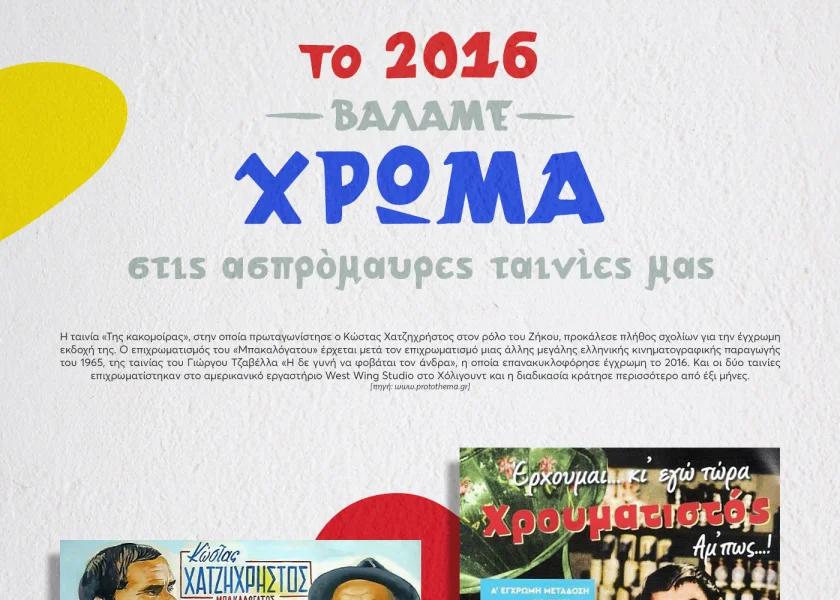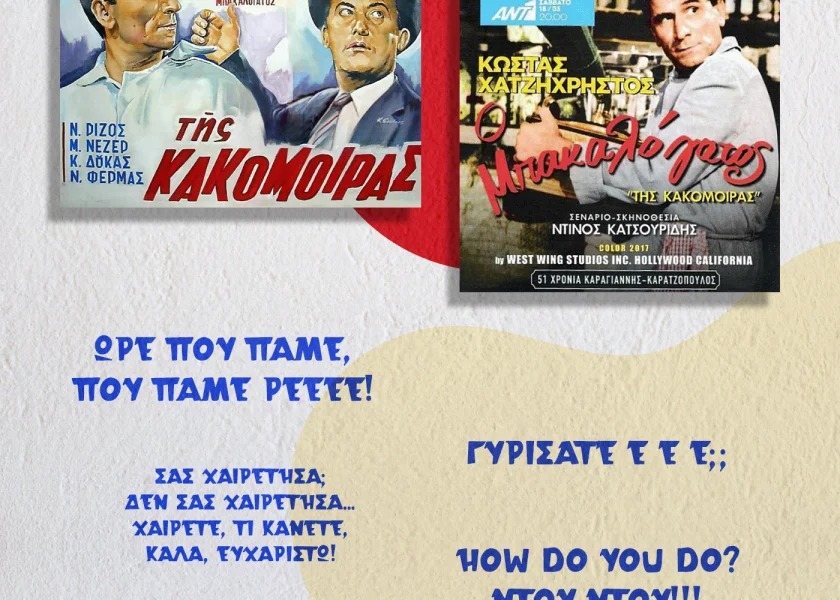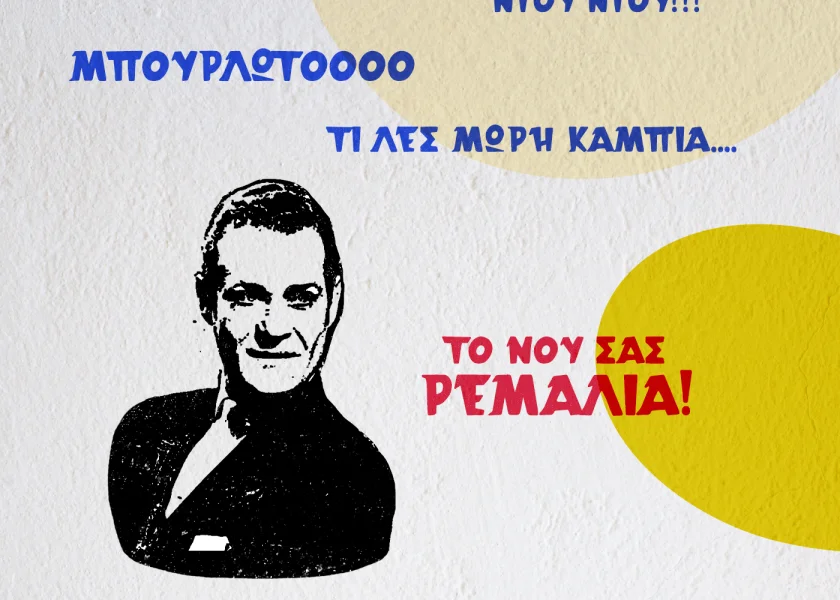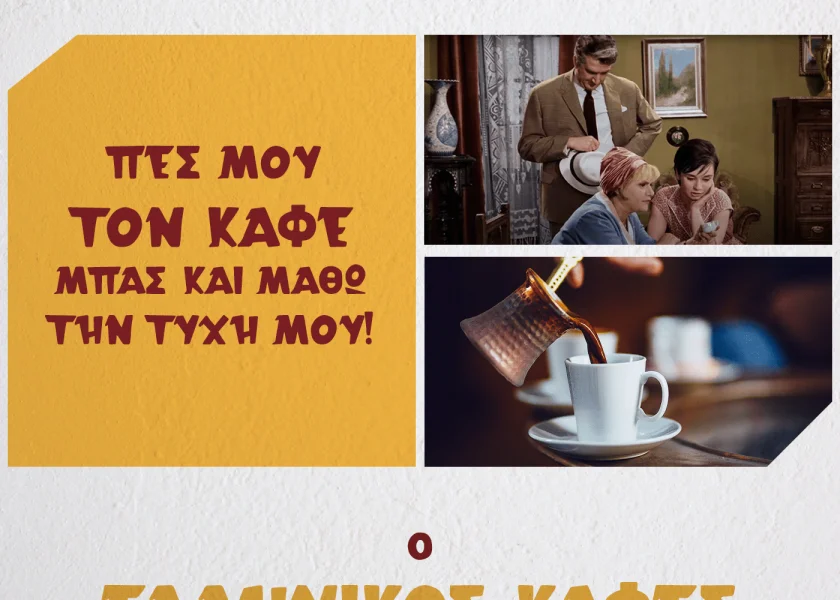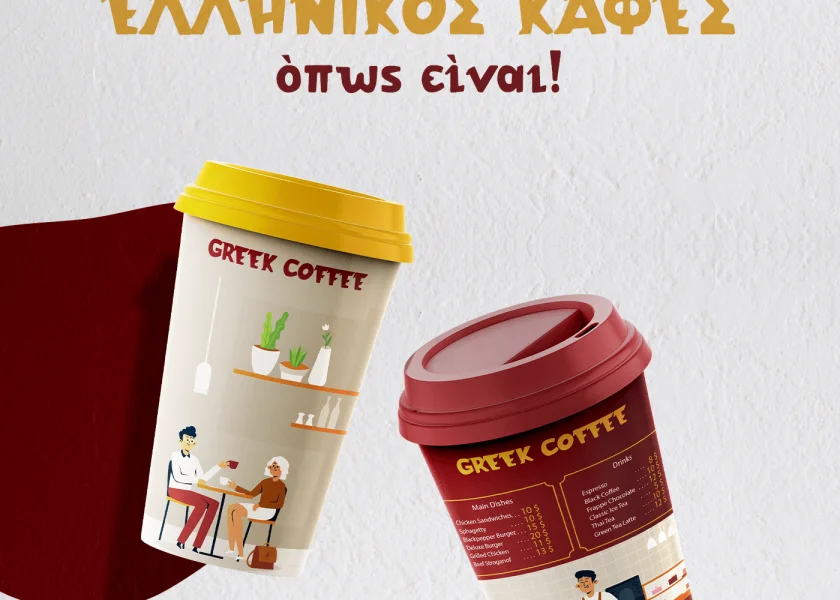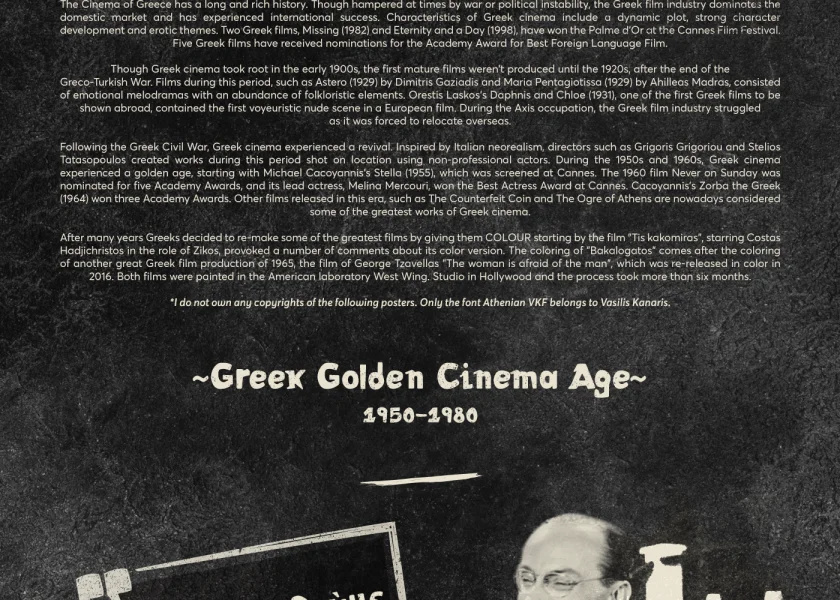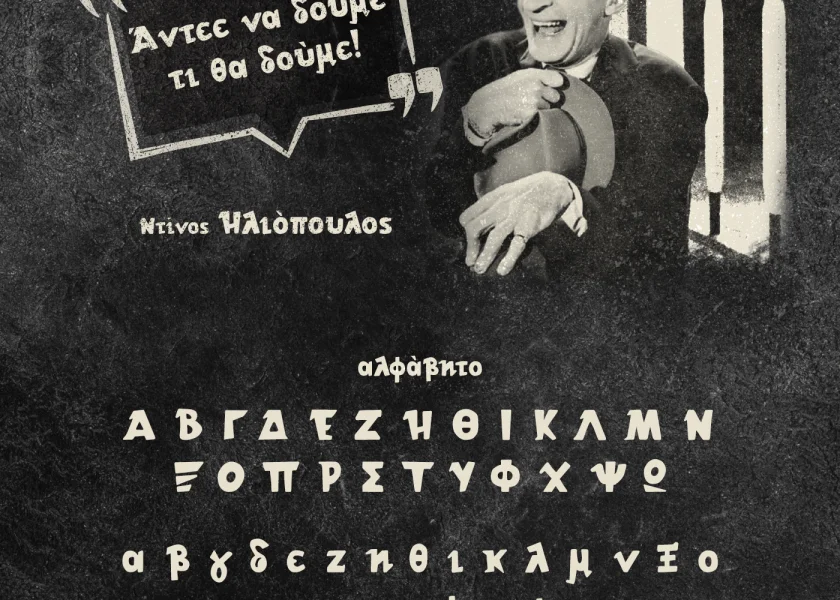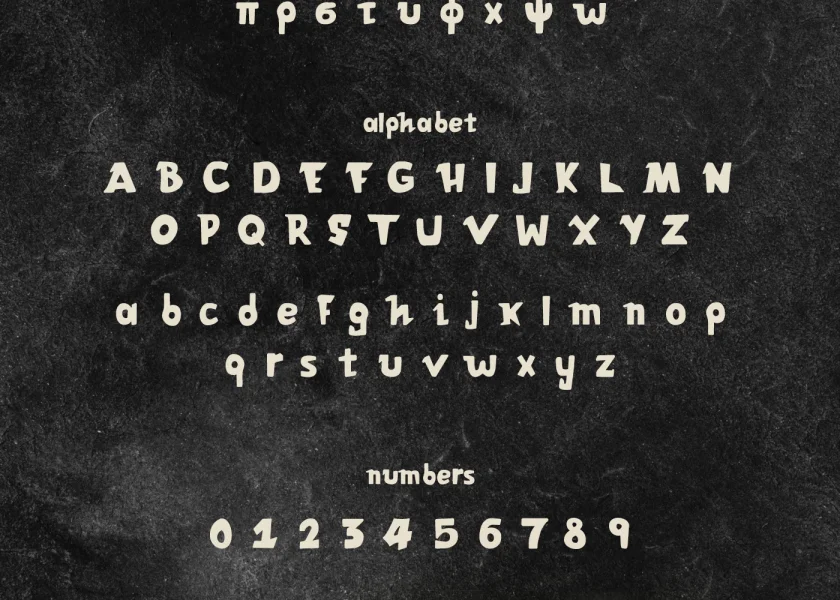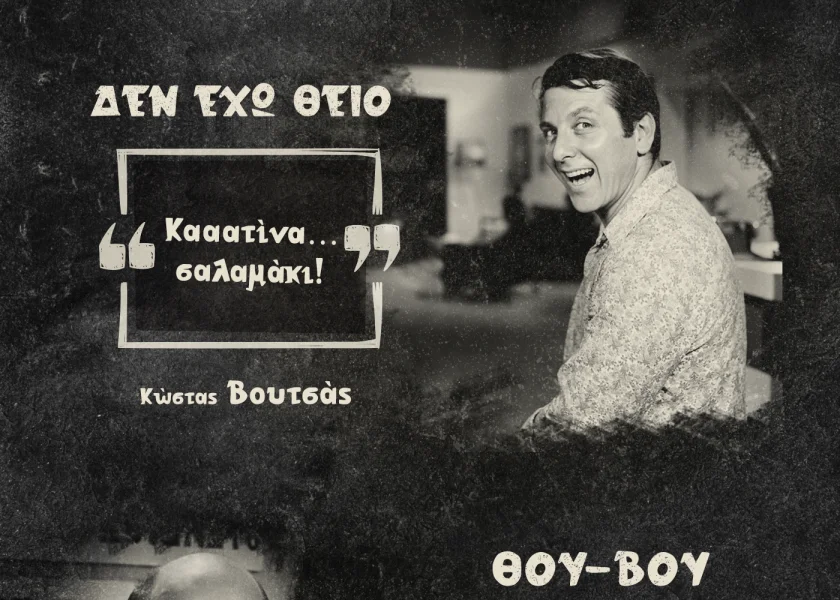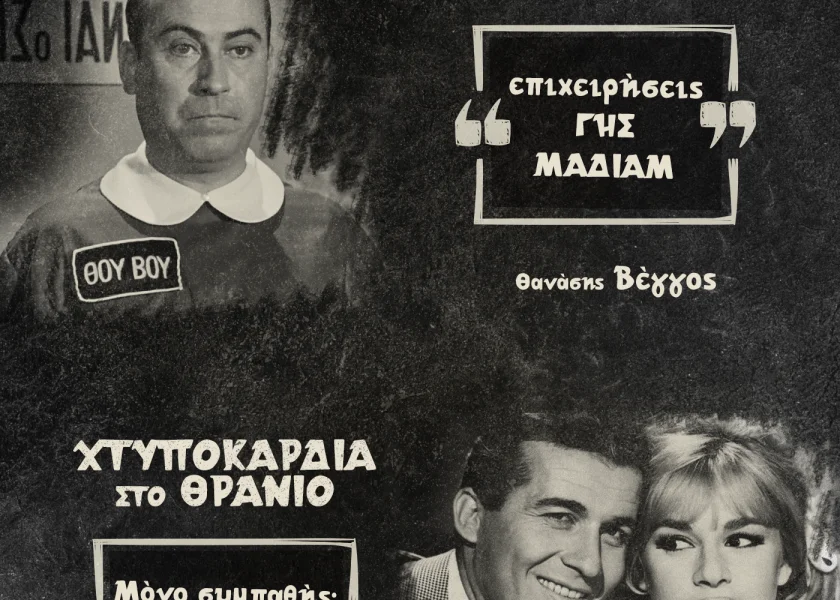
Athena VKF is a a modern-traditional greek font, inspired by the old (about 1950-1970) Greek movie theater. It is the second font in VKF typeface with a great honor in our Greek movie memories designed by Vasilis Kanaris. Exploring and study this forgotten heritage and adapt it its special style in modern media and communication tools. VKF version supports Greek letters and English. Includes lowercase, uppercase letters and symbols. Athena VKF is a very special font and I suggest her for unique logotypes, product designs, special campaigns and advertisment.